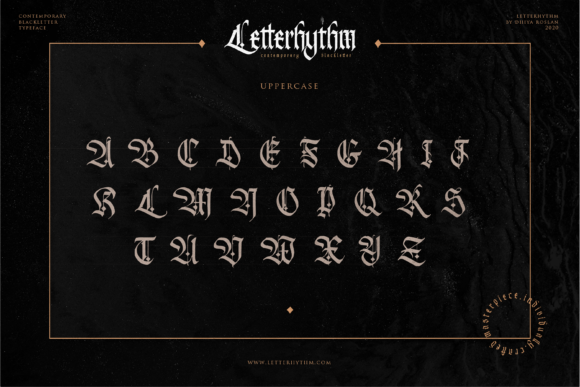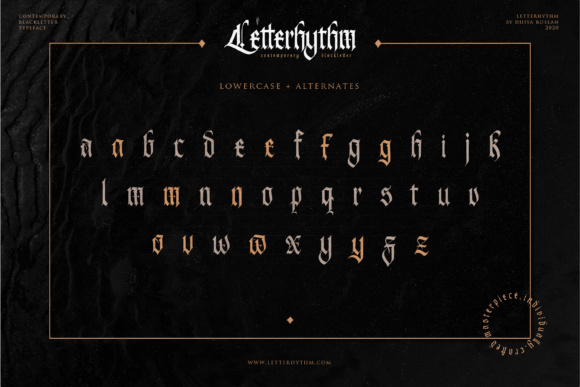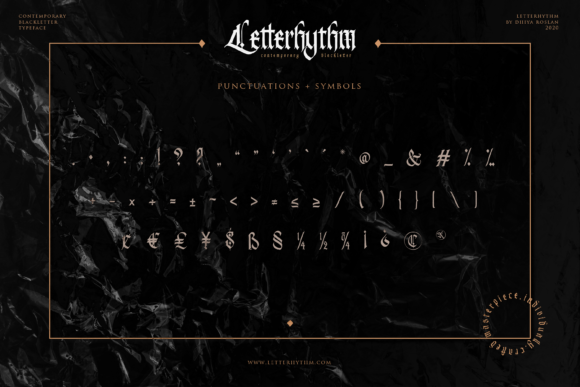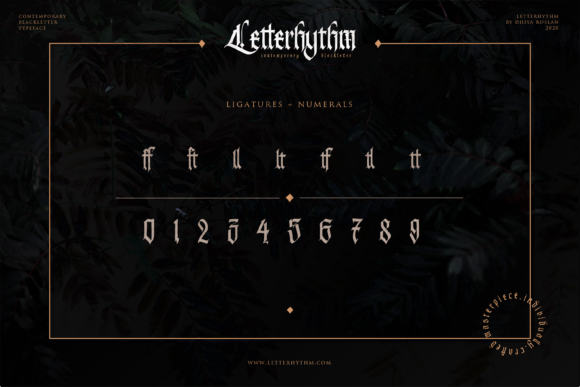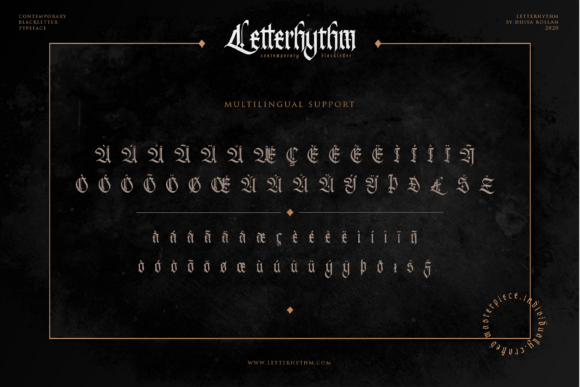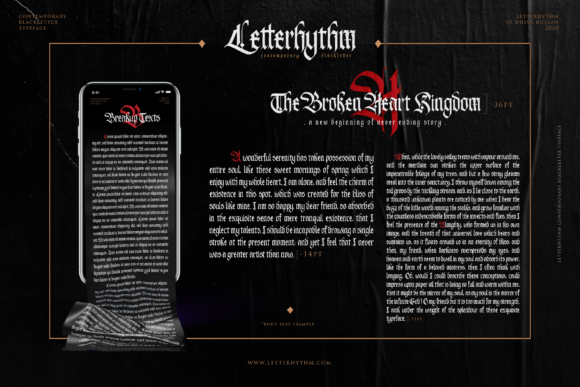
Introduction to Letterhythm Font
Have you ever found yourself lost in a sea of generic fonts, yearning for that one perfect addition to elevate your creative project? I know I have. As designers, we’re always on the hunt for that elusive combination of style and substance to make our work truly stand out. It’s in these moments of frustration that we stumble upon a hidden gem – the Letterhythm Font.
This highly detailed and assertive blackletter font is a game-changer for any design enthusiast. With its unique flair and high-quality aesthetic, the Letterhythm Font is sure to add a touch of sophistication to your next creative endeavor. Whether you’re working on a personal project or a professional design, this font is a valuable resource that’s sure to impress.
Key Features of Letterhythm Font
- High-quality design with a unique and creative touch, perfect for various projects.
- Unique characteristics: The Letterhythm Font features a modern and elegant design, making it suitable for a wide range of creative projects, from logos and branding to editorial and advertising designs.
Honest Review: Letterhythm Font
As a designer, I’m always on the lookout for high-quality fonts to elevate my creative projects. The Letterhythm Font caught my eye, and I was excited to dive in and see what it had to offer.
- ✨ Beautifully crafted letterforms with a unique rhythm and flow
However, I did encounter some limitations with the Letterhythm Font:
- ⚠️ Limited character set, which may be a challenge for some projects
- ⚠️ Not ideal for large blocks of text, as the font can become overwhelming
Overall, I’d say the Letterhythm Font is a great addition to any designer’s toolkit. While it may not be perfect for every project, its unique character and high-quality design make it a valuable resource for creative endeavors. I’m excited to continue exploring its possibilities and incorporating it into my future designs.
Tips for Getting the Most Out of Letterhythm Font
1. Use the Letterhythm Font with a transparent background for a clean and modern look.
2. Experiment with different font sizes and styles to add visual interest to your design.
3. Combine the Letterhythm Font with other design elements, such as images and shapes, to create a unique and engaging visual identity.
The Letterhythm Font is ideal for:
1. Creative projects, such as infographics, brochures, and posters.
2. Business presentations, such as slides and reports.
3. Digital marketing materials, such as social media posts and email newsletters.
Alternatives to Letterhythm Font
The Great Vibes Font is a high-quality, elegant script font perfect for creative projects that require a touch of sophistication. It’s available for free download and features a transparent background, making it ideal for overlaying on images or using as a standalone design element. Great Vibes Font is similar to Letterhythm Font in its flowing, handwritten style, but it’s more refined and versatile.